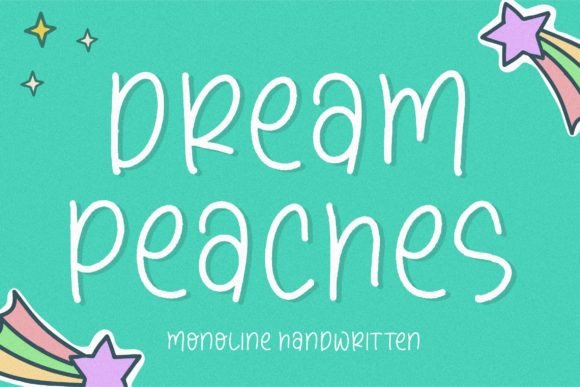
Journey into the realm of whimsical beauty and boundless creativity with Dream Peaches Font, a script font that effortlessly captures the essence of elegance and playfulness. Step into a world where your words dance across the page with grace and charm, leaving a trail of visual enchantment that will captivate the hearts of all who behold them.
Unleash your imagination and let Dream Peaches Font guide you through a symphony of creative possibilities. Design stunning logos that exude sophistication and artistic flair. Create eye-catching branding that speaks volumes about your brand's unique personality. Craft heartfelt invitations that set the tone for unforgettable events. Elevate the visual appeal of your packaging and leave a lasting impression on your customers.
With Dream Peaches Font, the possibilities are as limitless as your imagination. Its clean lines and understated sophistication make it the perfect choice for those seeking a timeless and versatile font. Whether you're a seasoned designer or just starting your creative journey, this font will effortlessly elevate your designs and bring your vision to life.
But what truly sets Dream Peaches Font apart is its ability to evoke emotions and create a lasting connection with your audience. Its elegant curves and playful charm will touch their hearts, leaving them with a sense of wonder and delight. Whether you're designing a heartfelt greeting card, creating a captivating social media post, or showcasing your products in an online store, Dream Peaches Font will add a touch of magic that will leave your audience spellbound.
So embark on this creative odyssey with Dream Peaches Font, and let your imagination soar. Embrace the boundless possibilities that await you, and create designs that resonate with beauty, elegance, and timeless appeal. Let your words take flight, and watch as they transform into visual masterpieces that leave an unforgettable impression on the world.